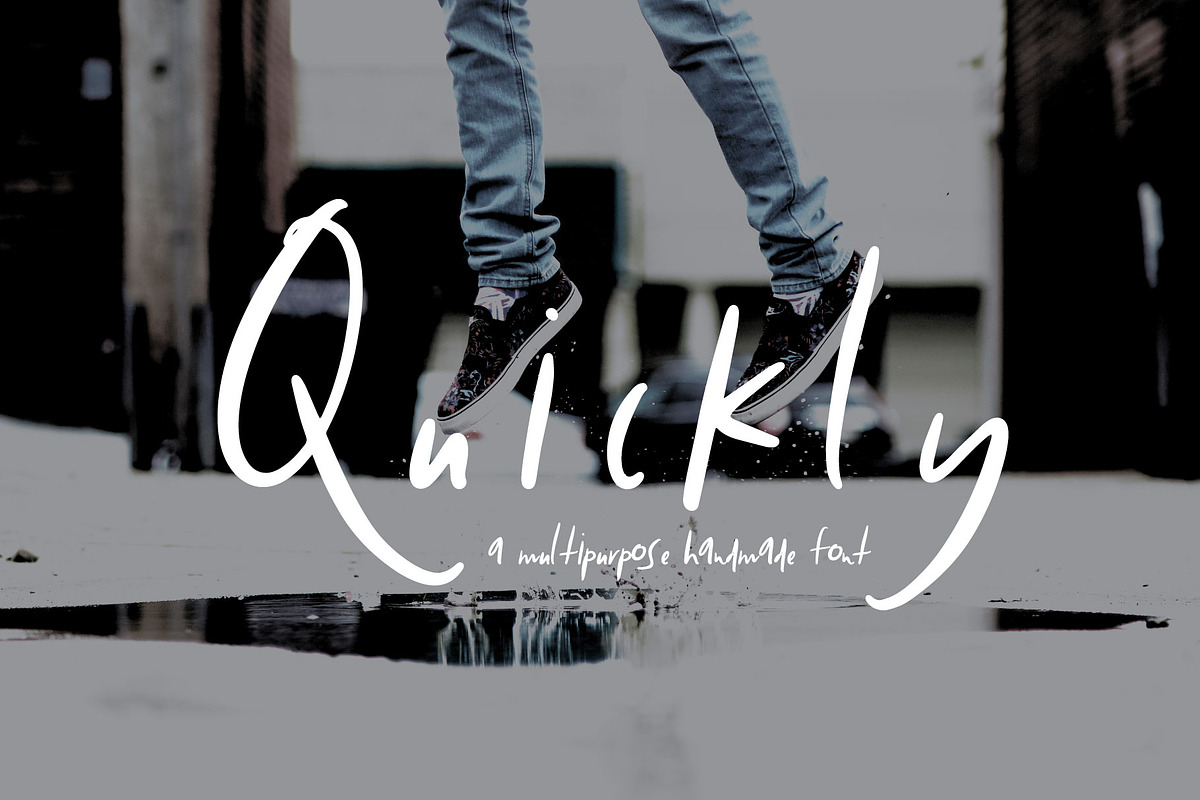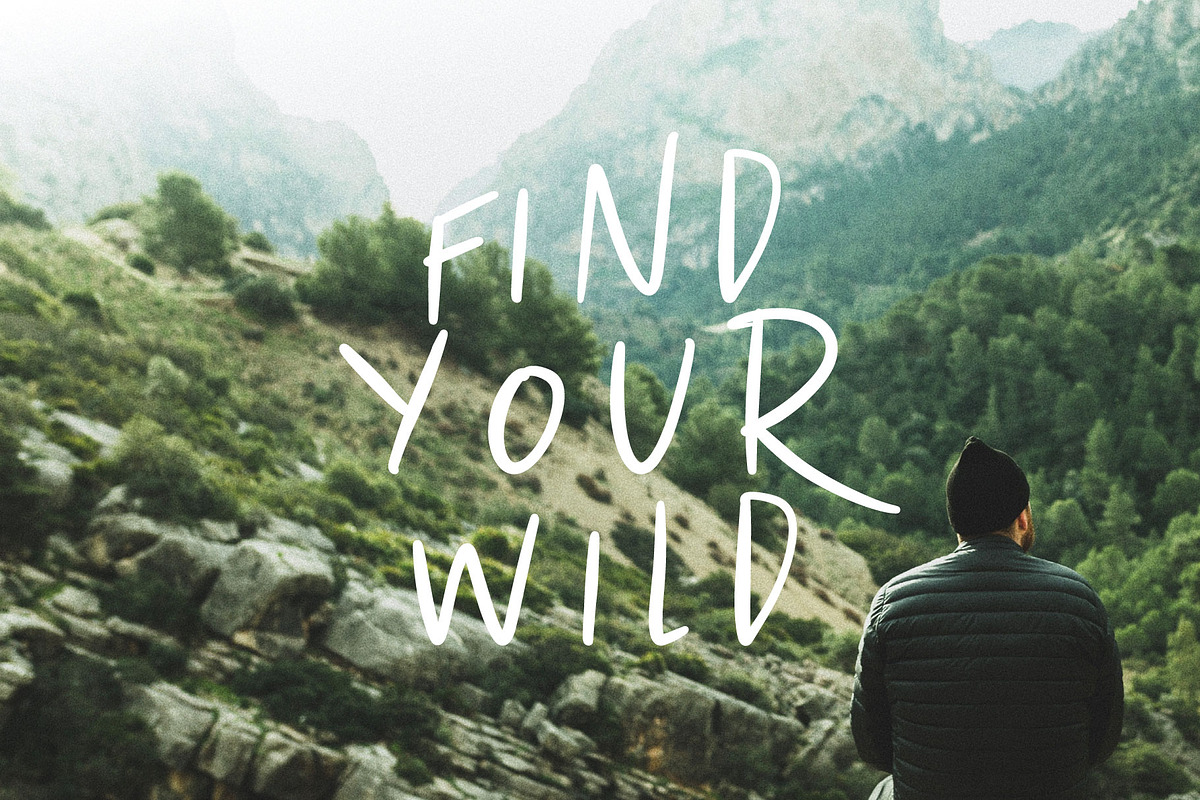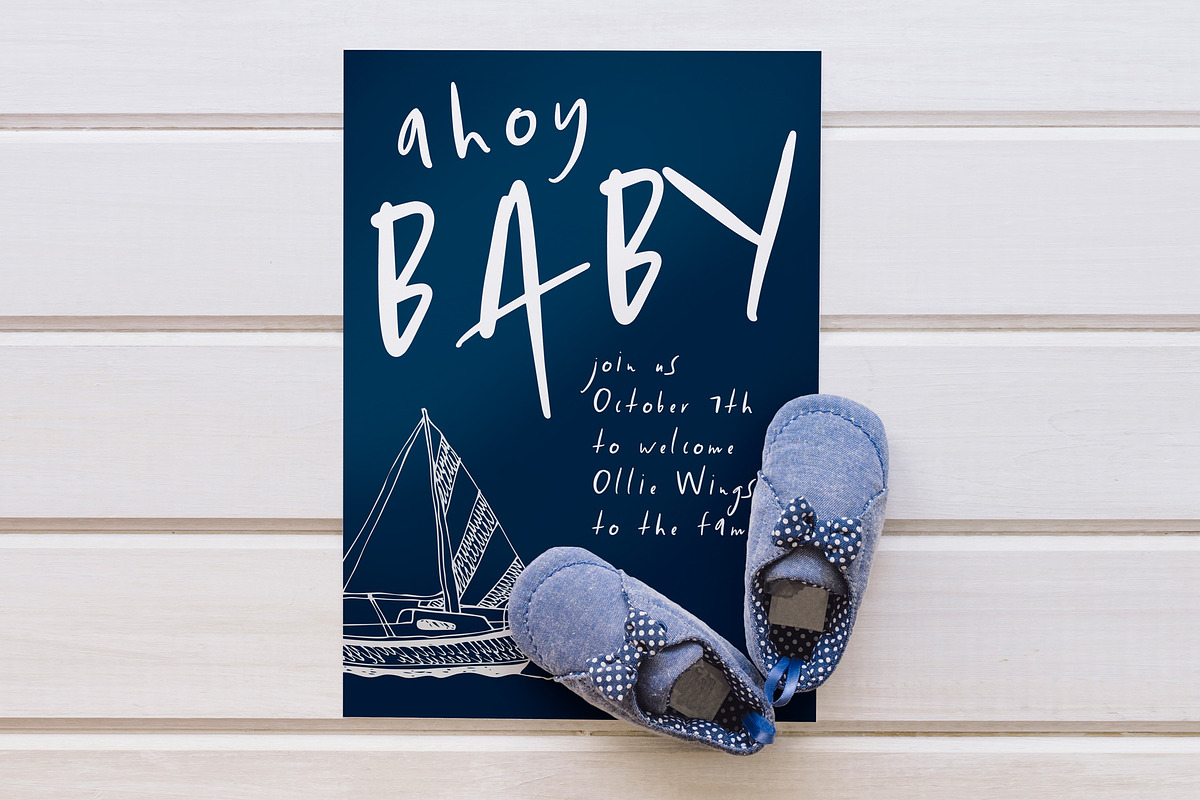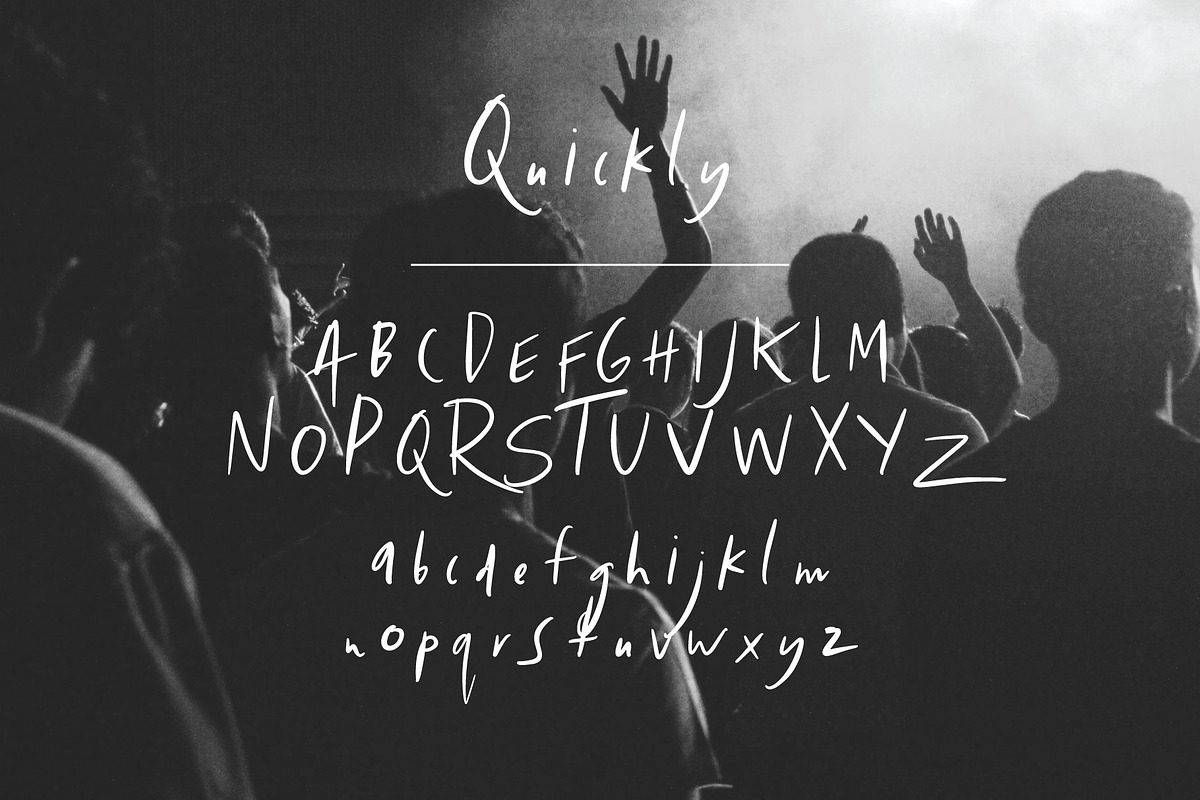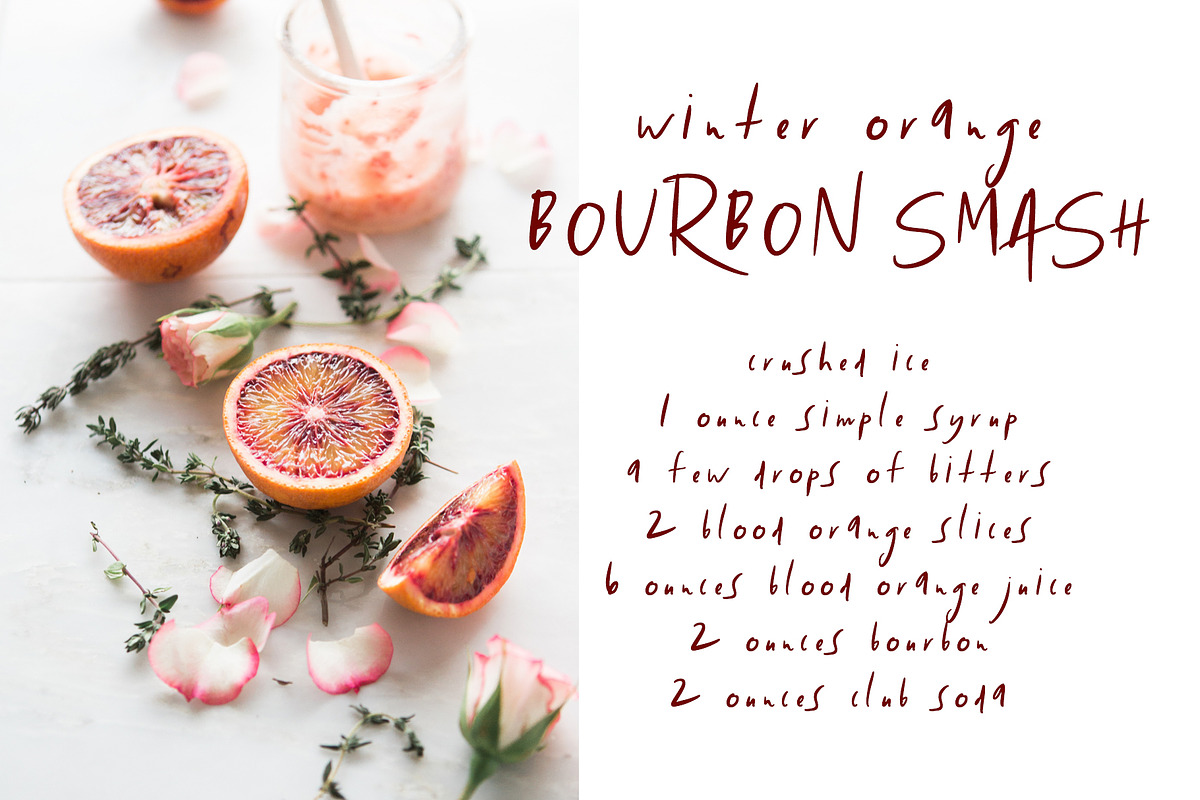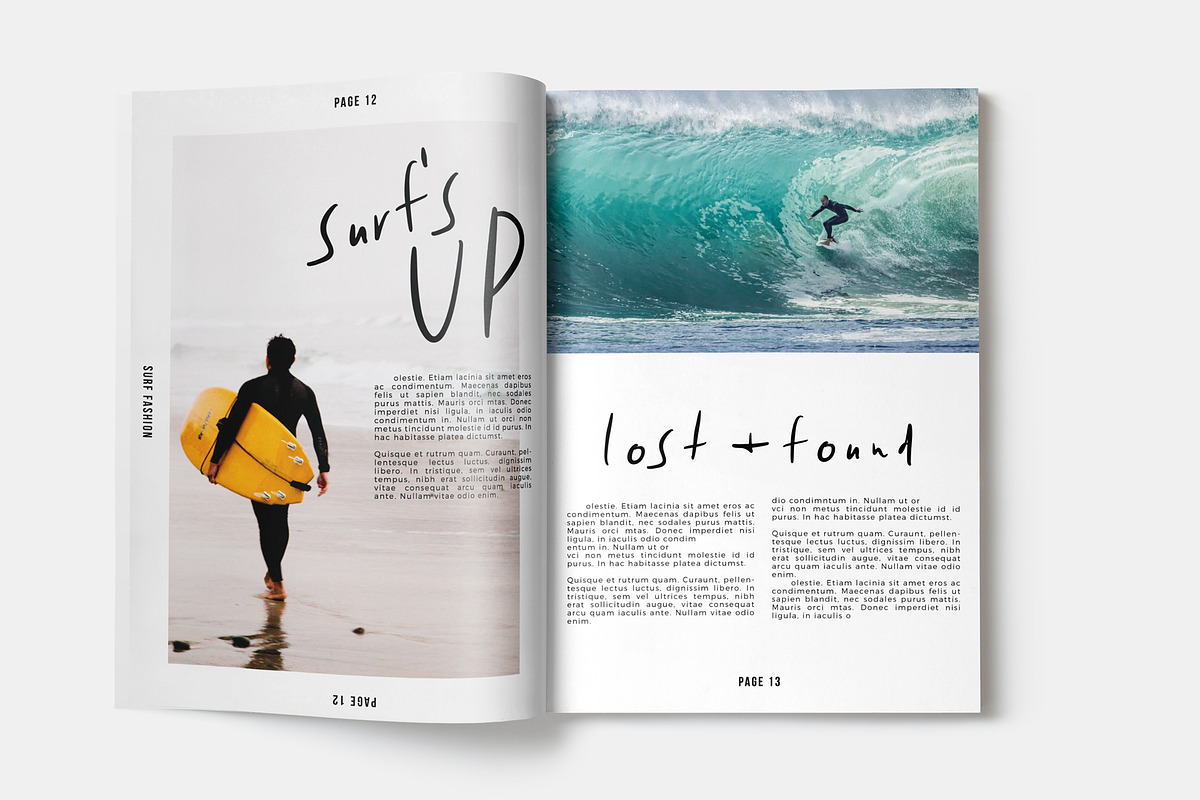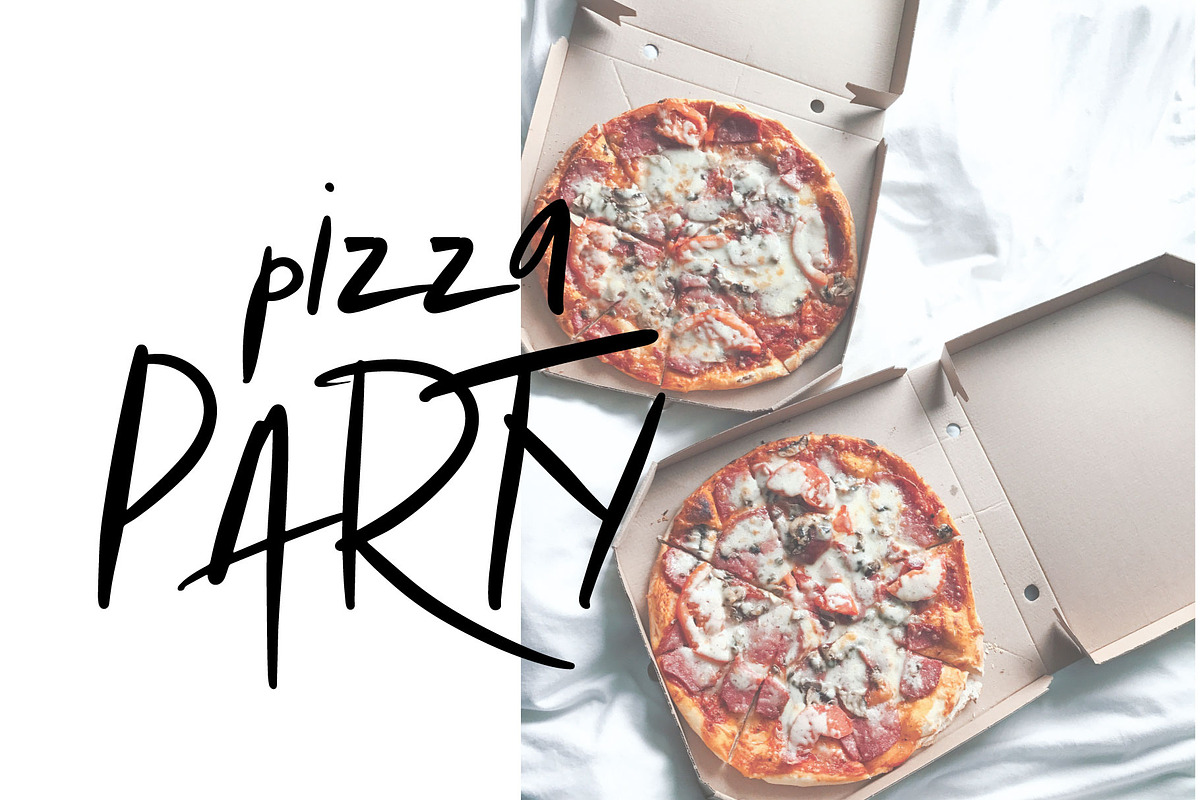
Quickly Font
QUICKLYA hand drawn multipurpose font inspired by street fashion and surf styles
Sketchy and unique, Quickly font brings to mind youthfulness and style in a fun and playful way.
Quickly Font by Midnight Grim fits naturally into Branding, posters, packaging, typography.